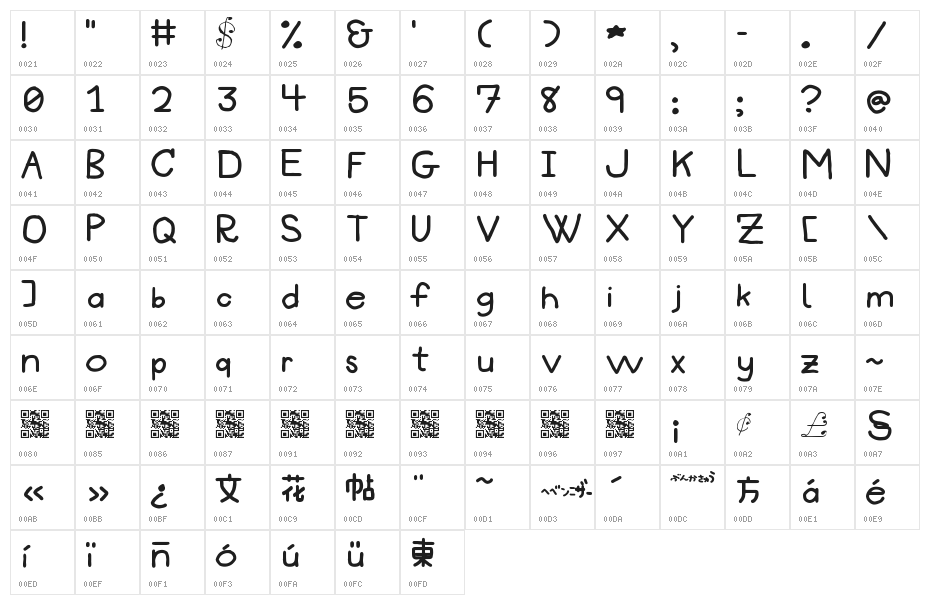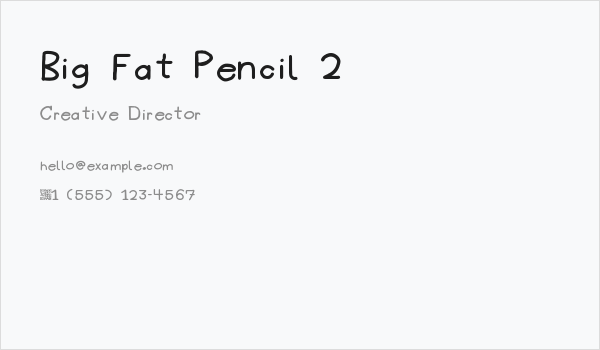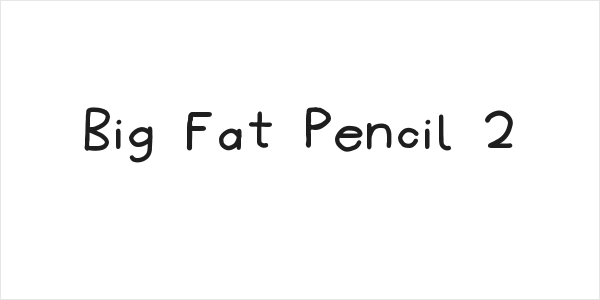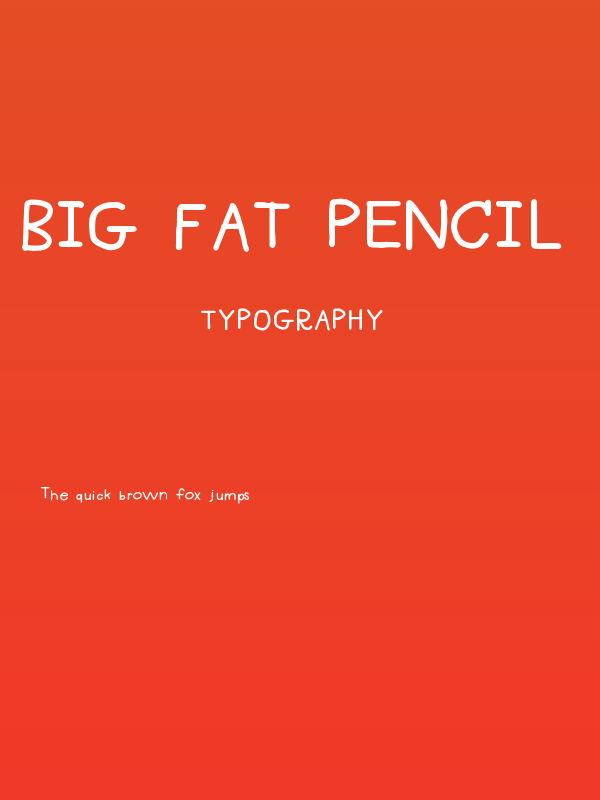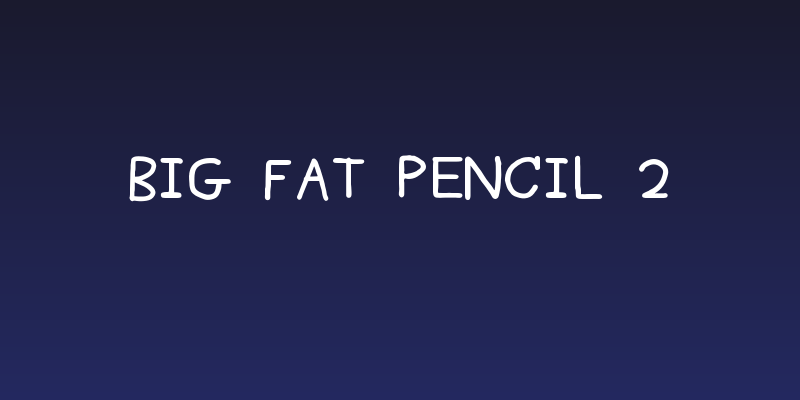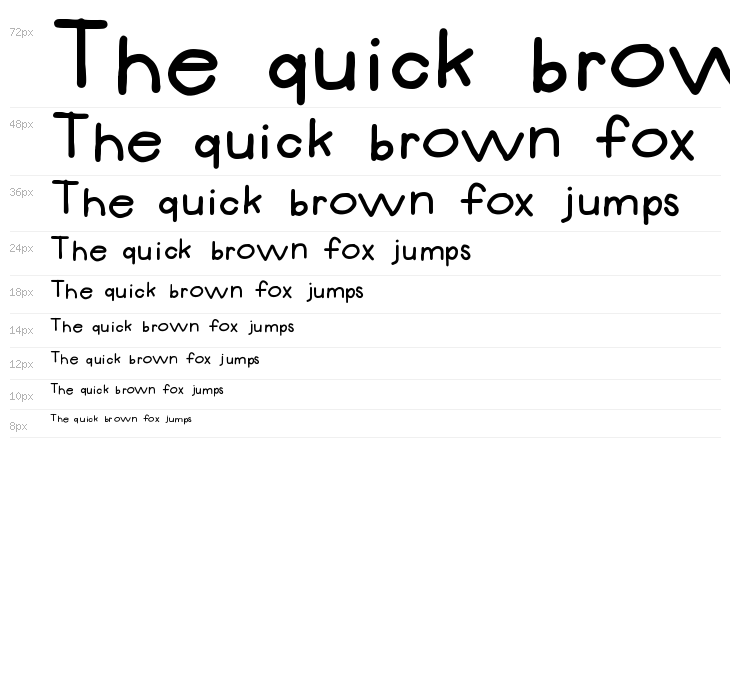
Big Fat Pencil 2 Font
Big Fat Pencil 2 Description
This playful and bold font features a handwritten style with rounded edges and a casual, friendly appearance. The characters are thick and slightly irregular, giving them a whimsical and approachable feel. The uppercase and lowercase letters maintain a consistent style, with smooth curves and a uniform stroke width. The numbers and special characters are designed to match the overall aesthetic, ensuring a cohesive look across all text elements. This font is ideal for projects that require a fun and informal touch, such as children's books, playful branding, or creative invitations.
| Use Case | Headlines, Logos, Informal text |
| Proposed Projects | Children's books, playful branding, creative invitations, casual posters. |